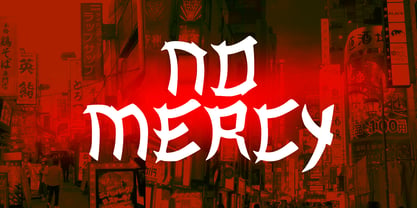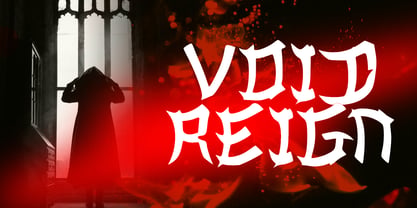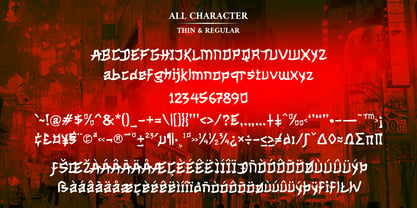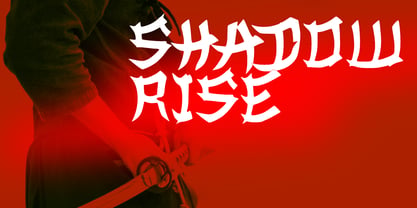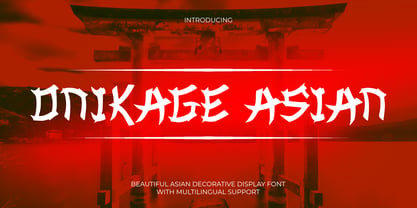
Onikage Asian
by Mei Suseno
The Onikage Asian Font Family was designed by Wahyu Eka Prasetya, Mei Suseno and published by Mei Suseno. Onikage Asian contains 2 styles and family package options. More about this family
Onikage Asian is a bold display typeface inspired by Japanese aesthetics, tribal shapes, and modern blackletter style. Designed with sharp edges and aggressive letterforms, this font delivers a strong dark atmosphere perfect for eye-catching visual projects.
Its unique character combines gothic energy, streetwear culture, and fantasy vibes, making it ideal for logos, posters, album covers, gaming titles, branding, apparel designs, and creative headlines.
Whether you are creating a cyberpunk concept, metal artwork, or urban streetwear branding, Onikage Asian adds a powerful and distinctive visual identity to your design.
Perfect For:
• Streetwear Branding
• Gaming & Esports
• Logo Design
• Posters & Album Covers
• Japanese Style Designs
• Metal & Gothic Themes
• Social Media Graphics
• YouTube Thumbnails
• Urban Artwork
Designers: Wahyu Eka Prasetya, Mei Suseno
Foundry: Mei Suseno